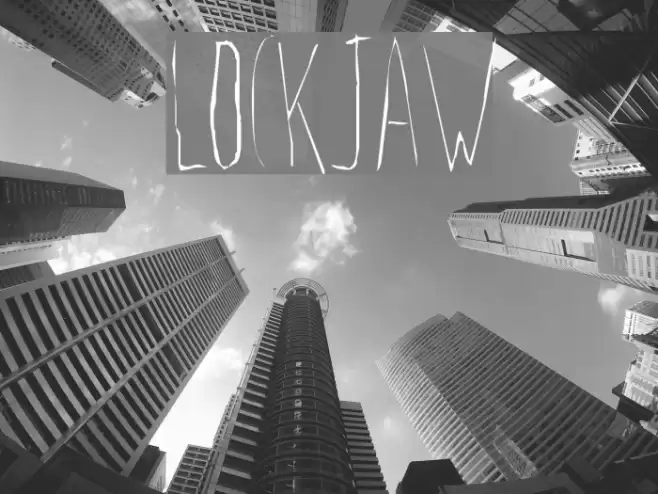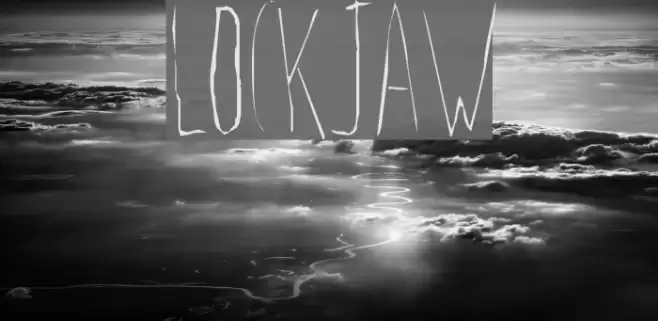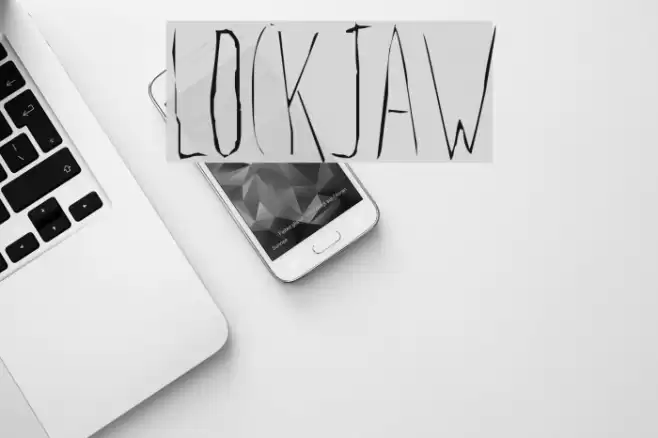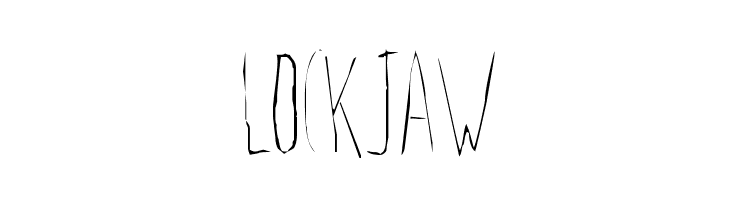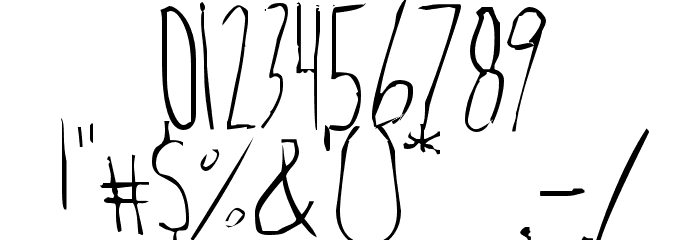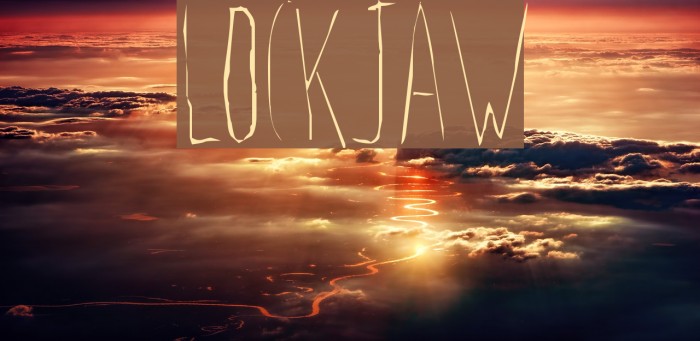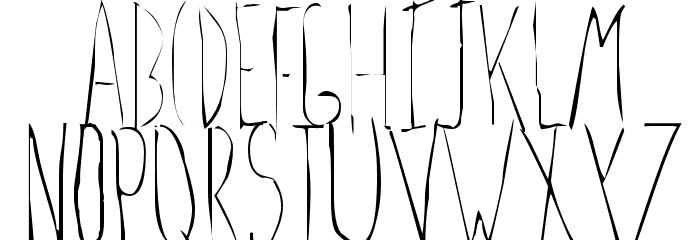
Lockjaw Font
Lockjaw Description
This font features a unique, hand-drawn style with elongated and narrow characters. The strokes are uneven, giving it a whimsical and artistic appearance. The uppercase letters are tall and slender, while the lowercase letters maintain a consistent style with slightly more rounded forms. Numbers and special characters follow the same quirky design, ensuring a cohesive look across all elements. The font's irregularities and playful nature make it stand out, adding a touch of creativity and individuality to any project.
A whimsical, hand-drawn font with elongated, narrow characters and uneven strokes from Uncategorized fonts.
- Proposed Projects: Ideal for creative projects such as posters, invitations, and artistic branding that require a unique and playful touch.
- Use Case: Headlines, Artistic projects, Posters